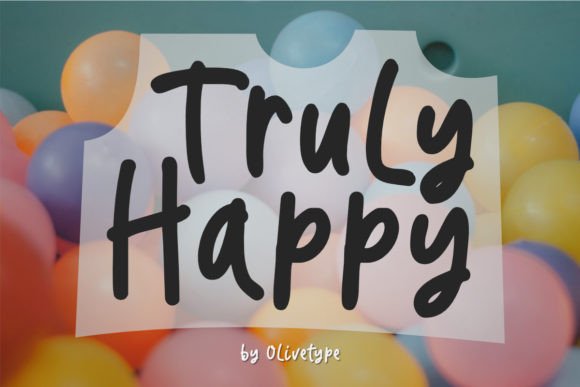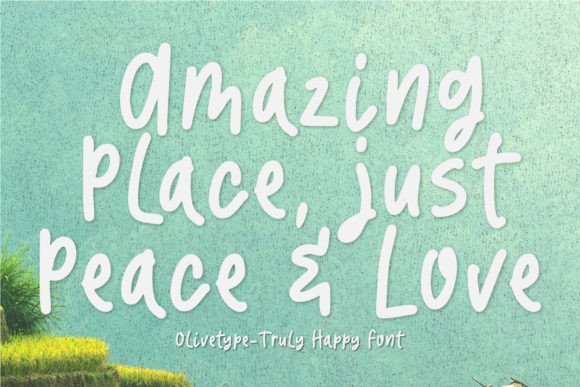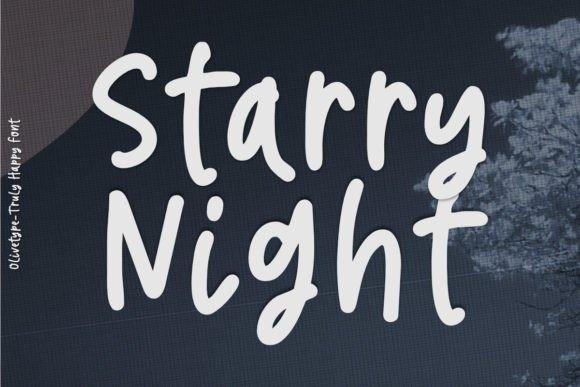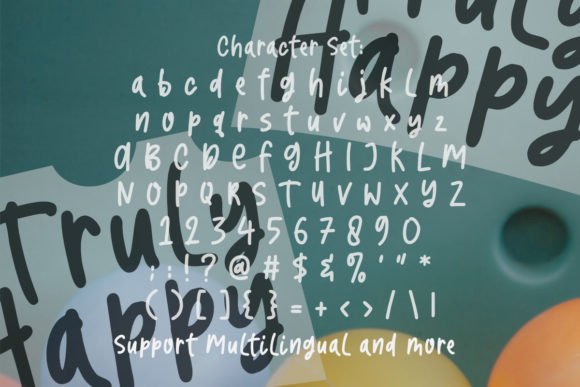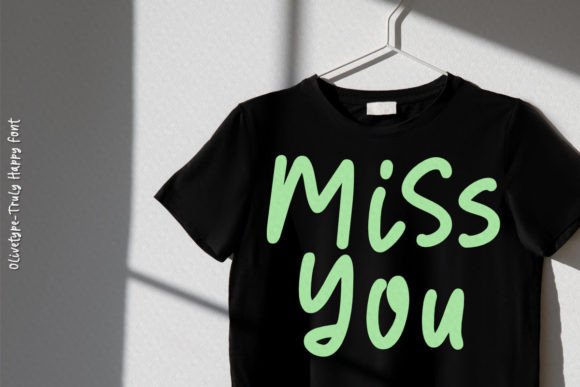
Truly Happy Font
About Truly Happy Font
“Truly Happy” is an enchanting and spirited handwritten font that encapsulates an irresistible sense of joy and warmth. This endearing typeface is not only cute but also exudes an innate sense of fun, making it an ideal choice for a diverse array of creative projects.
With its whimsical and inviting design, “Truly Happy” brings a touch of delight to every character. Its playful strokes and charming imperfections evoke a genuine, handcrafted feel that resonates with a youthful spirit. This font exudes an infectious positivity that can uplift any design it graces.
One of the most remarkable qualities of “Truly Happy” is its versatility. Its cheerful demeanor is a perfect fit for crafting personalized greeting cards, infusing them with a unique and heartfelt touch. Whether you’re sending birthday wishes, celebrating a special occasion, or simply spreading some cheer, this font adds an extra layer of personality to your message.
Moreover, “Truly Happy” seamlessly integrates into the world of apparel design, where its quirky and lighthearted aesthetic can enhance a range of clothing items, from t-shirts and hoodies to accessories and more. It effortlessly captures the essence of youthful exuberance, making it an excellent choice for fashion-forward brands and products.
Beyond greeting cards and apparel, “Truly Happy” has the potential to breathe life into various creative endeavors. It’s a fantastic option for branding projects, adding a touch of authenticity and approachability to logos, packaging, and promotional materials. The font’s handwritten charm can also elevate your social media graphics, website headers, and blog banners, creating a welcoming and engaging online presence.
In essence, “Truly Happy” is more than just a font; it’s a versatile tool that infuses a dose of happiness and charm into your design projects. Whether you’re aiming to convey a sense of youthful playfulness or simply want to brighten someone’s day, this font is your trusty companion. Embrace the whimsy, embrace the joy, and let “Truly Happy” be your creative partner in spreading smiles and creating memorable designs.